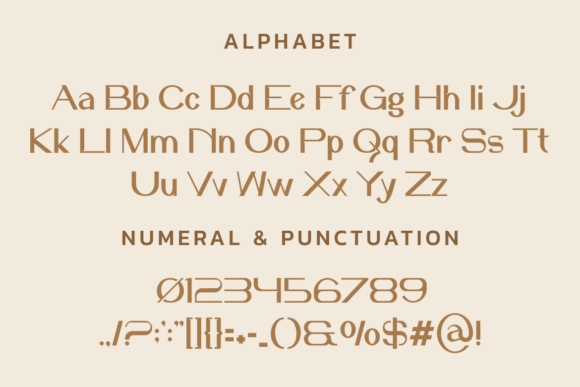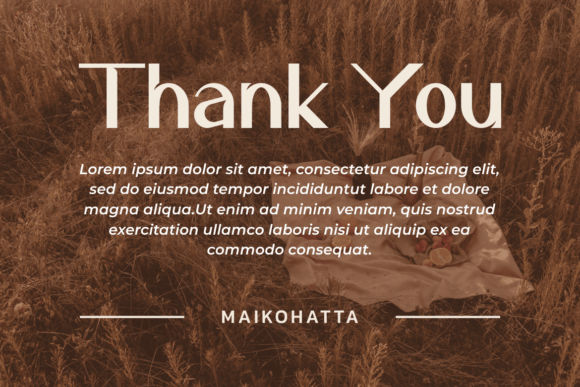
Introduction to North Queen Font
North Queen creates a modern, sophisticated, professional, and eye-catching look.
It’s perfect for contemporary designs, digital media, advertising, and more .
Key Features of North Queen Font
Why Choose North Queen Font?
North Queen Font offers exceptional quality and versatility, making it a valuable addition to your design toolkit. Whether you’re creating for personal projects or commercial use, North Queen Font delivers professional results.